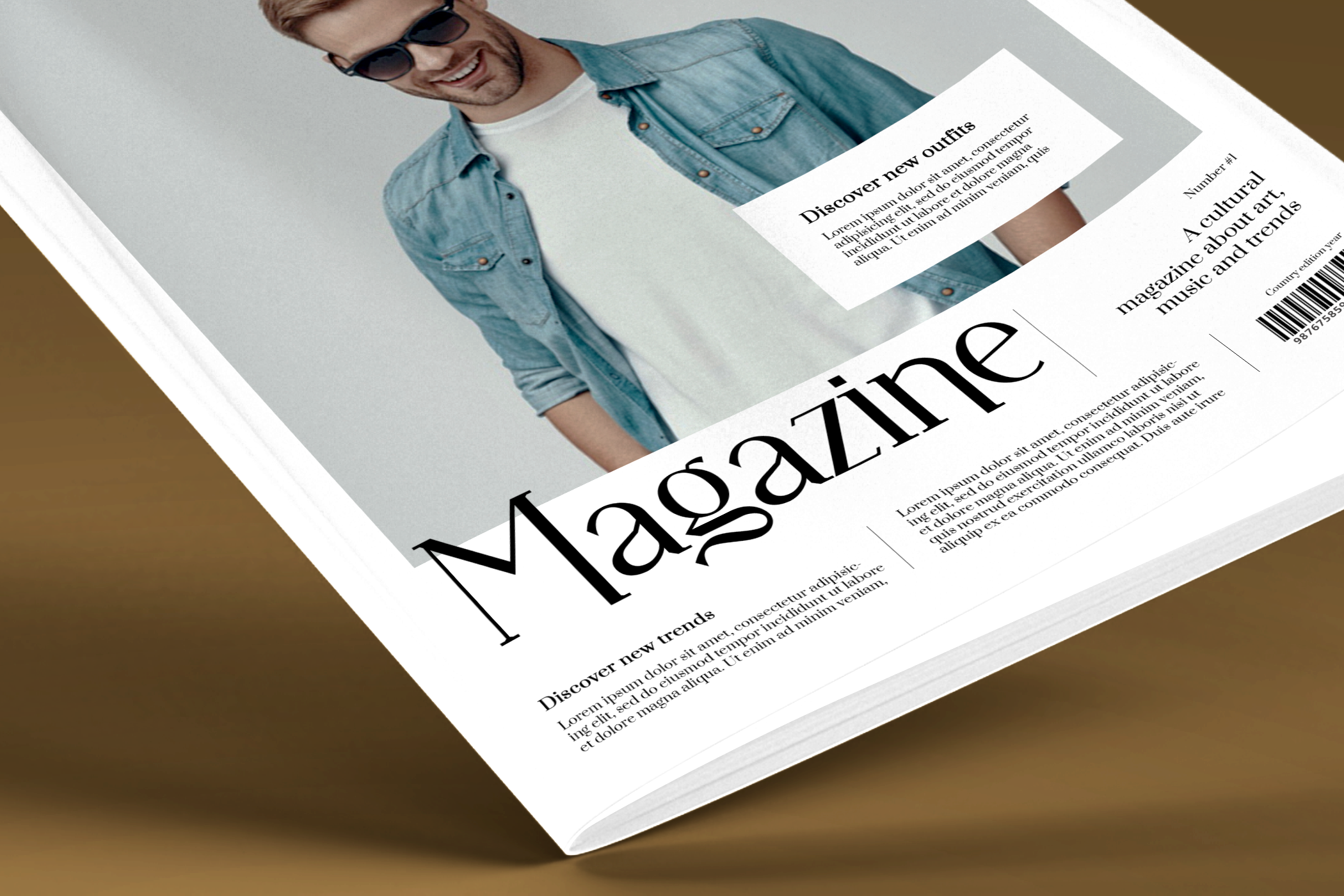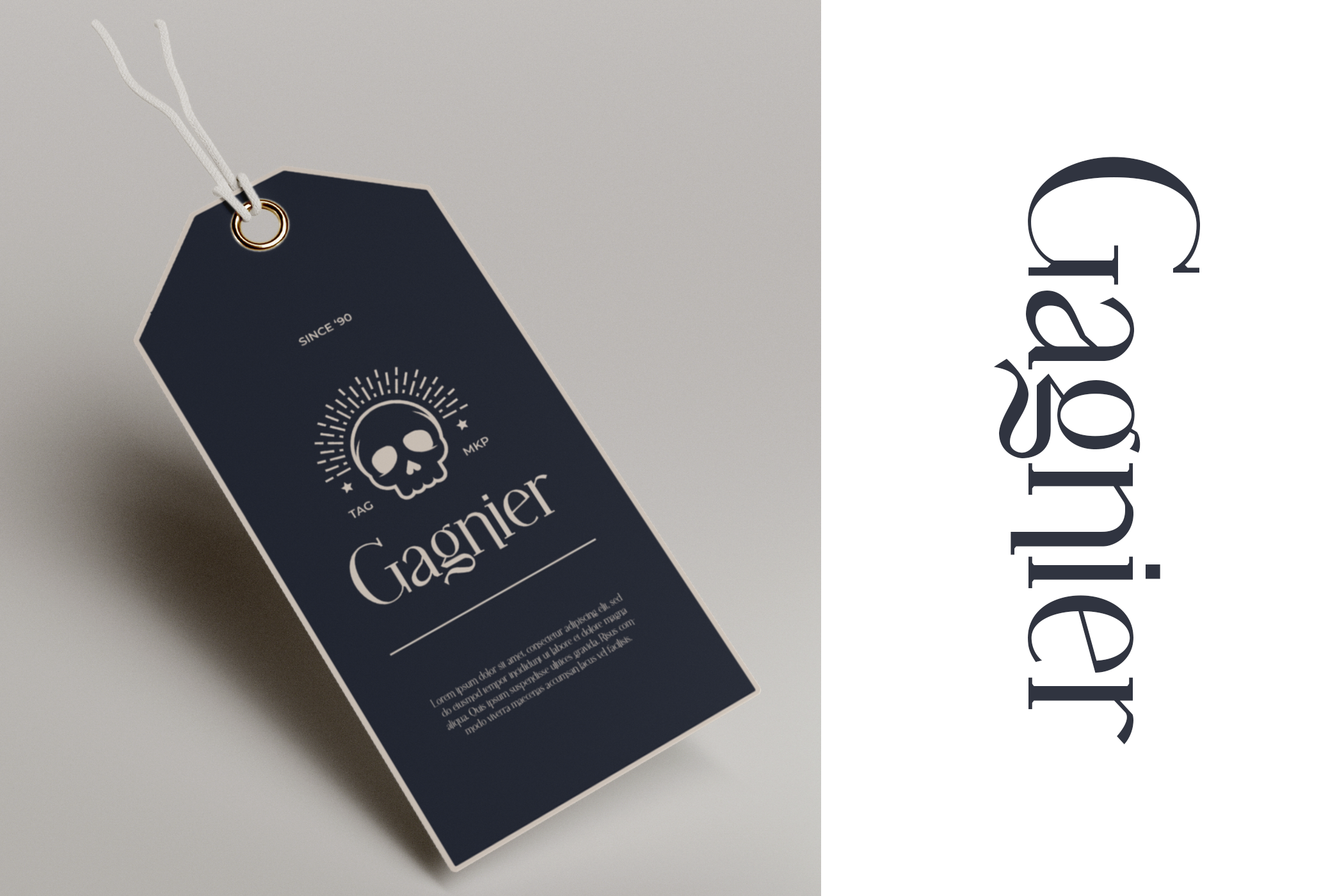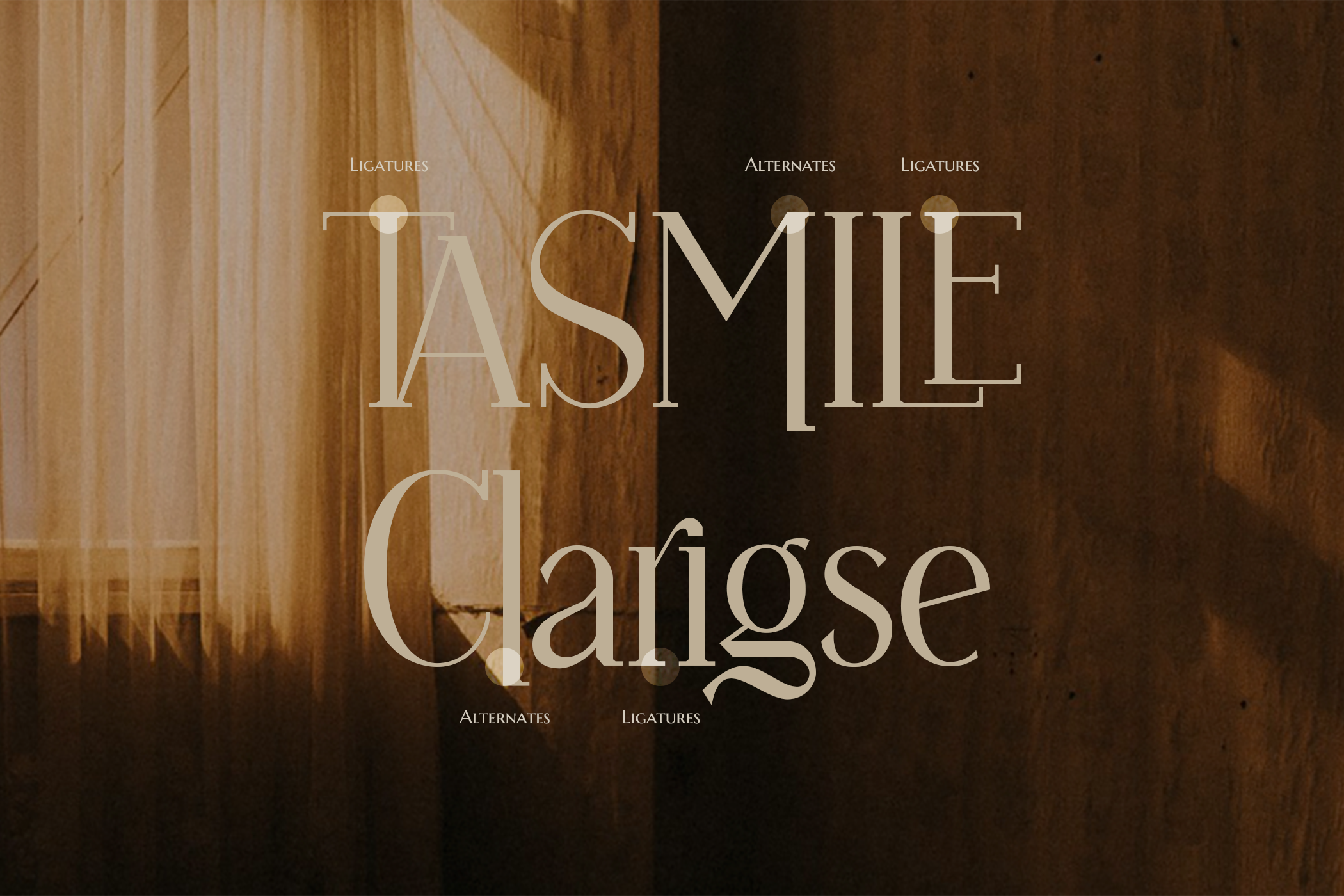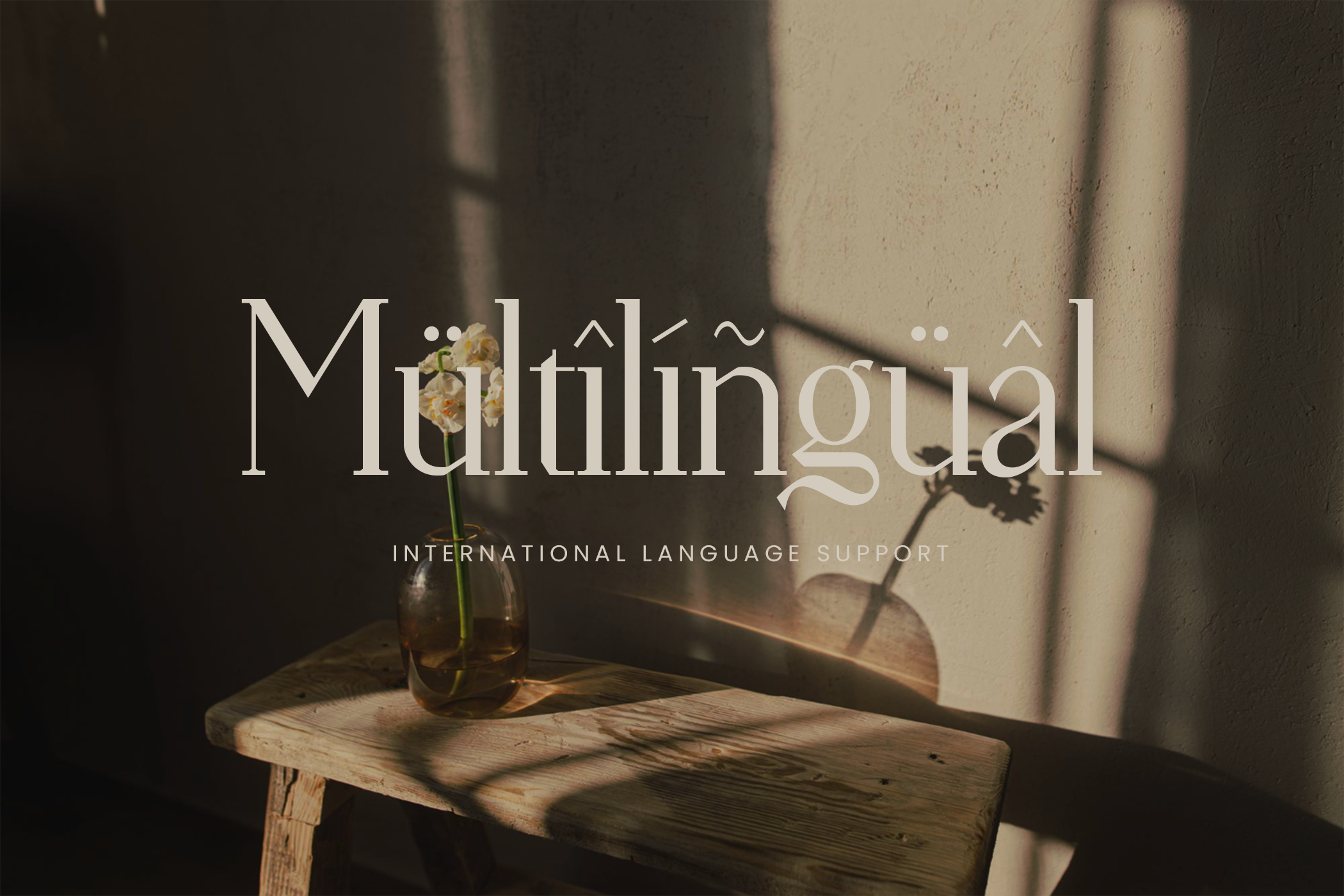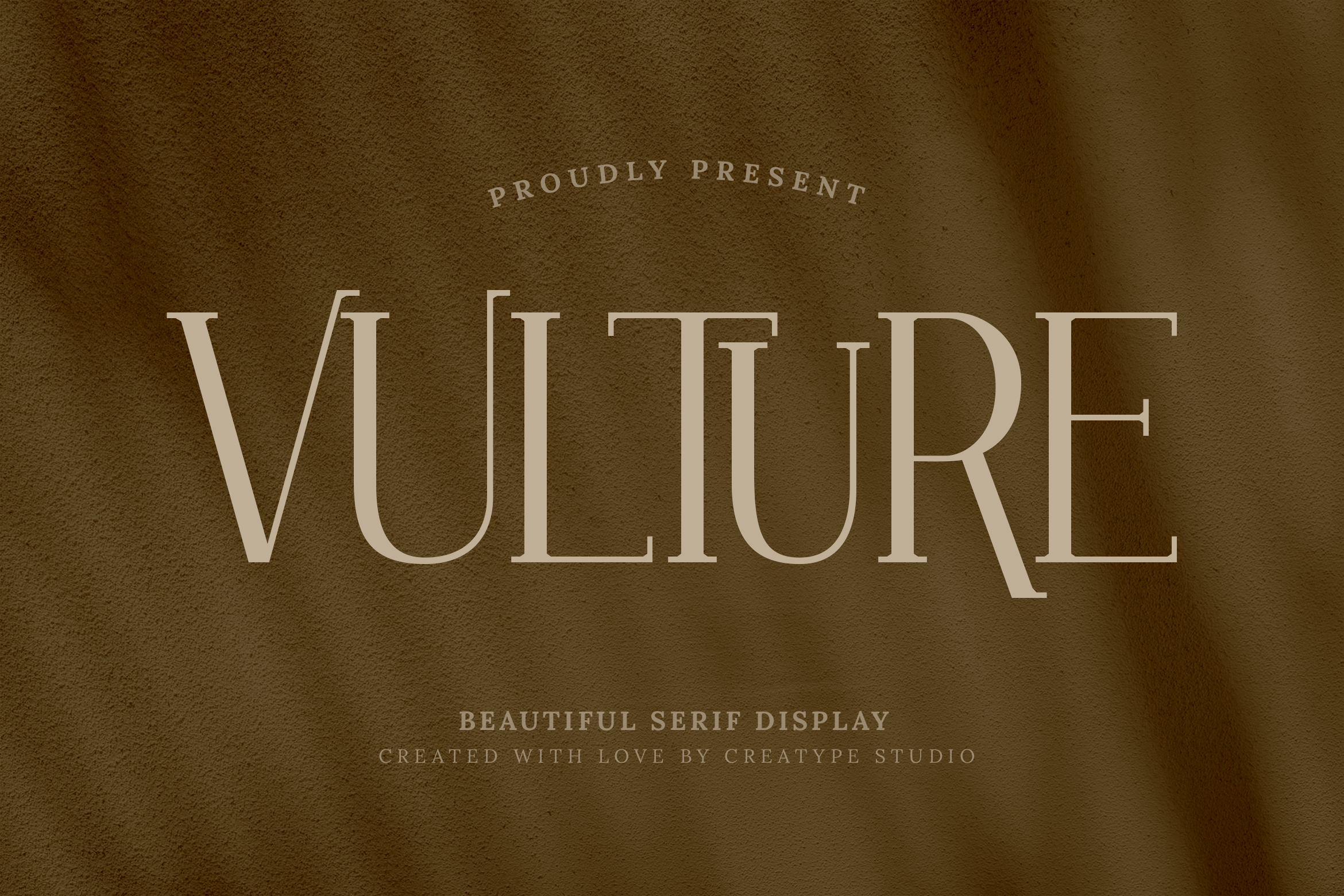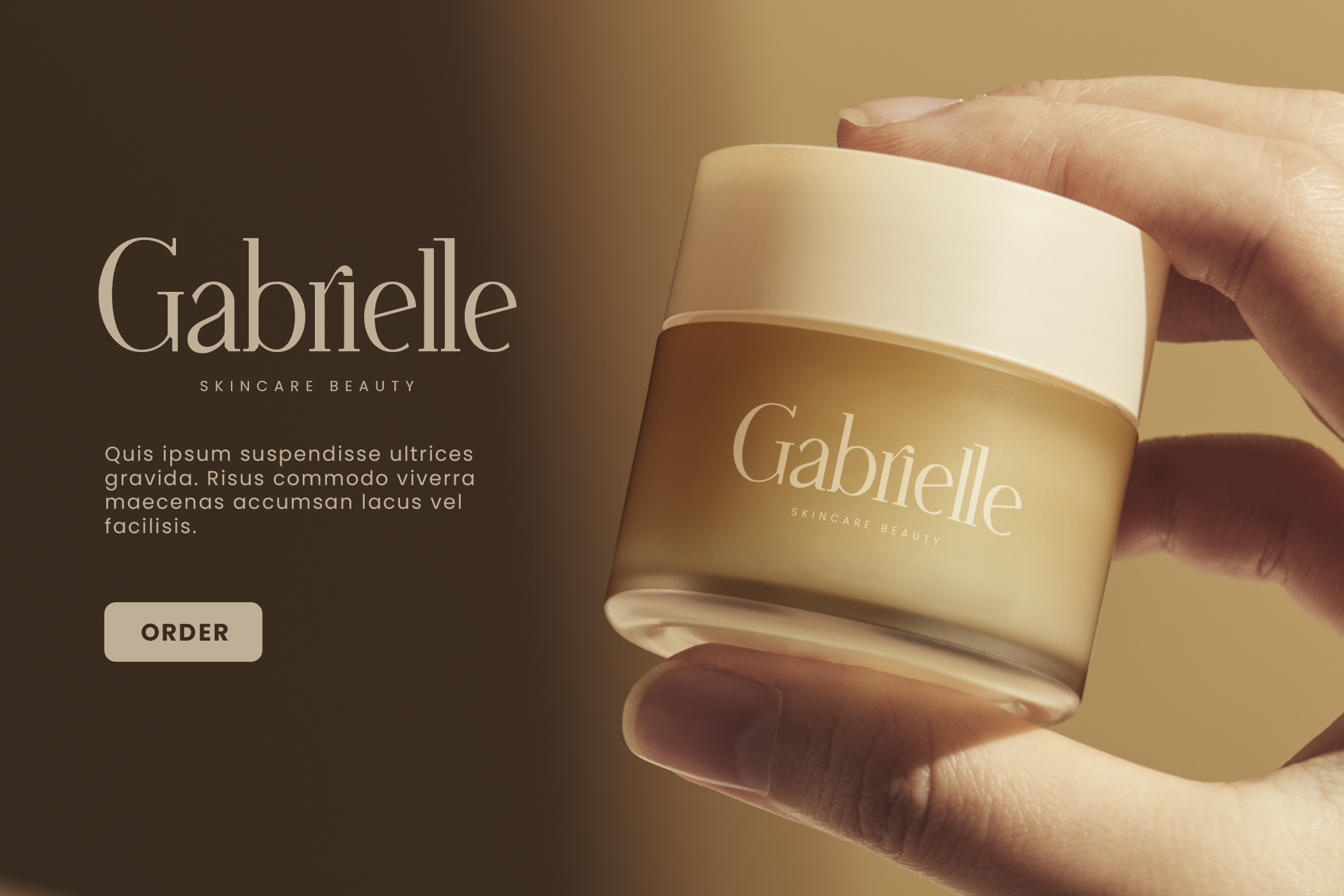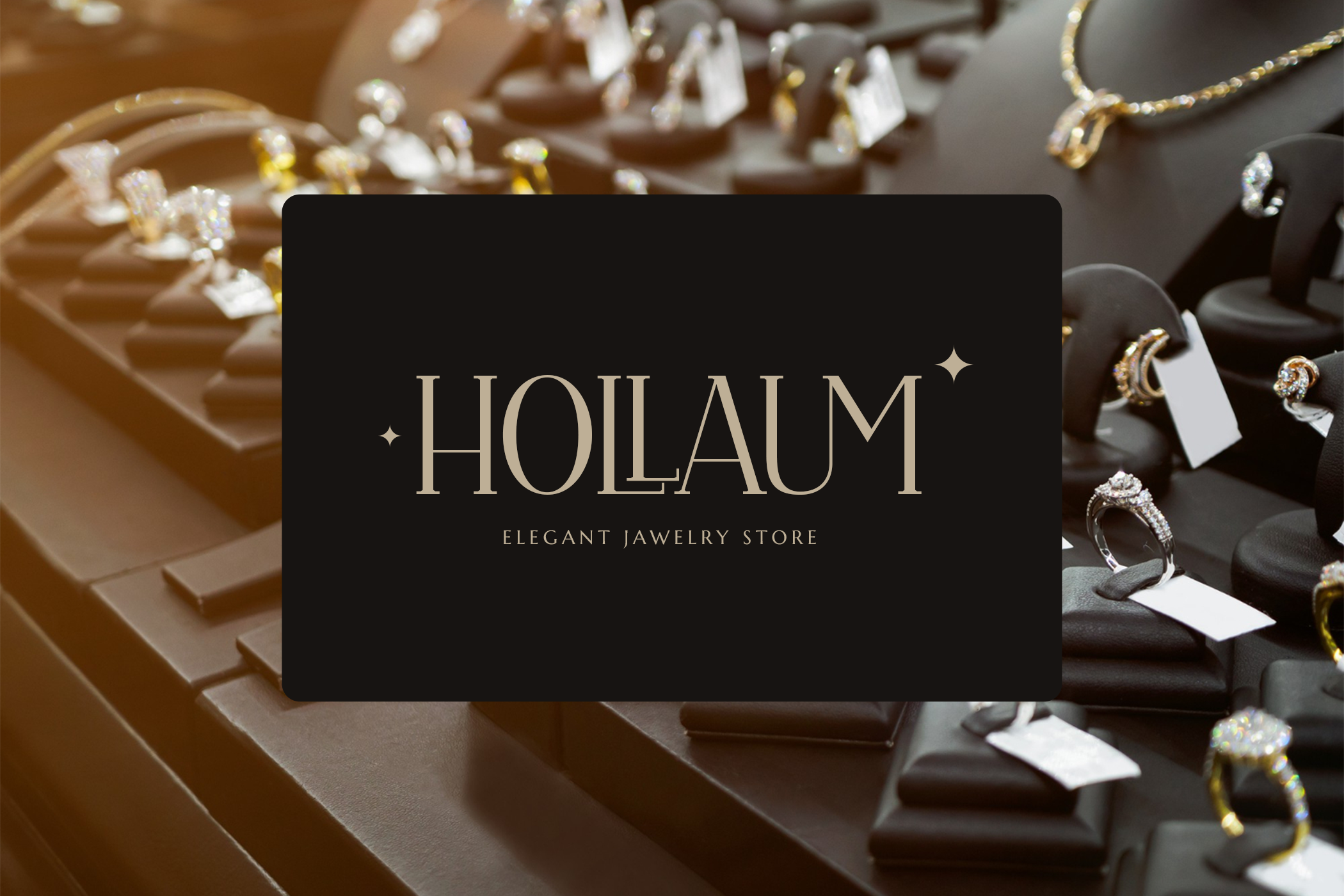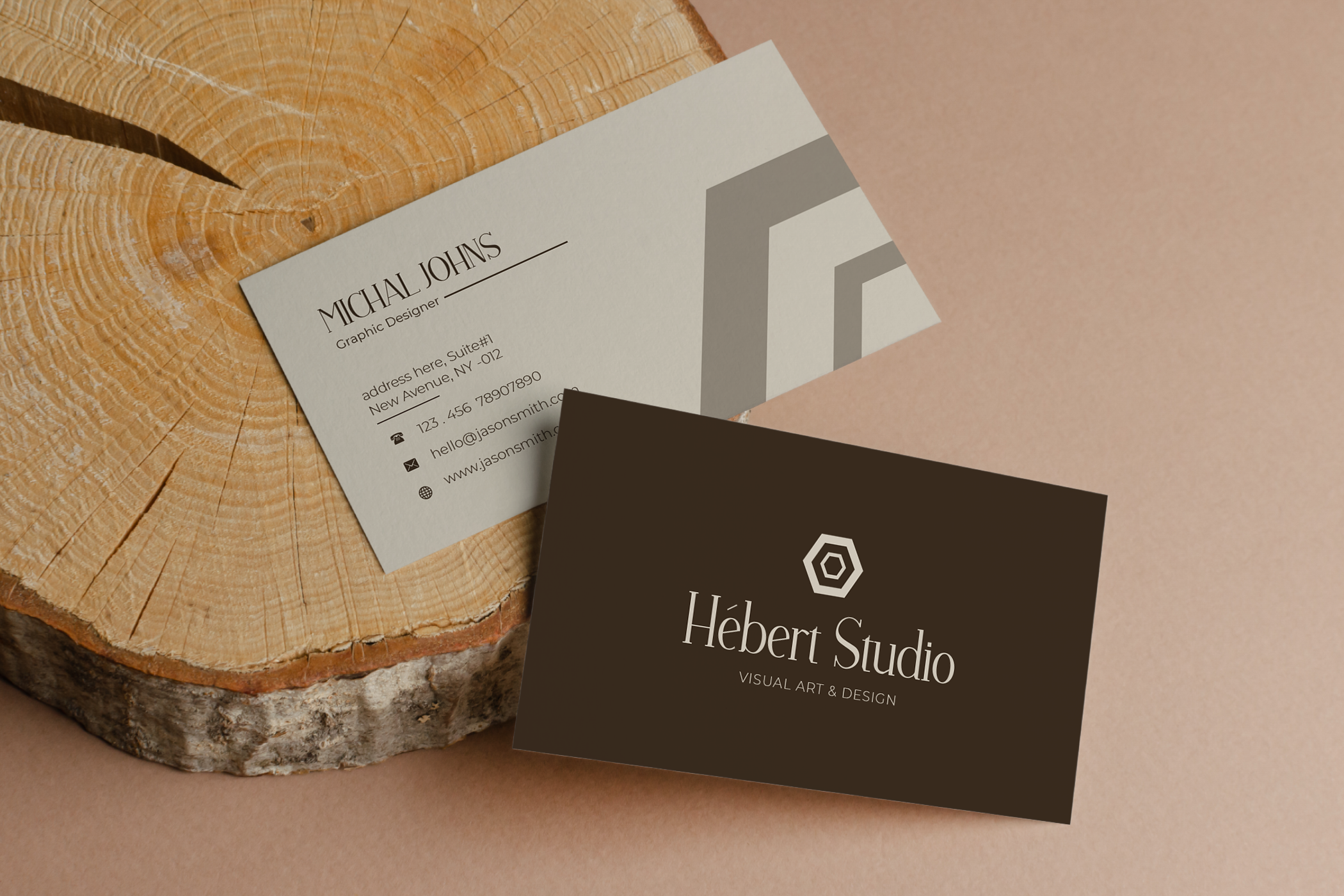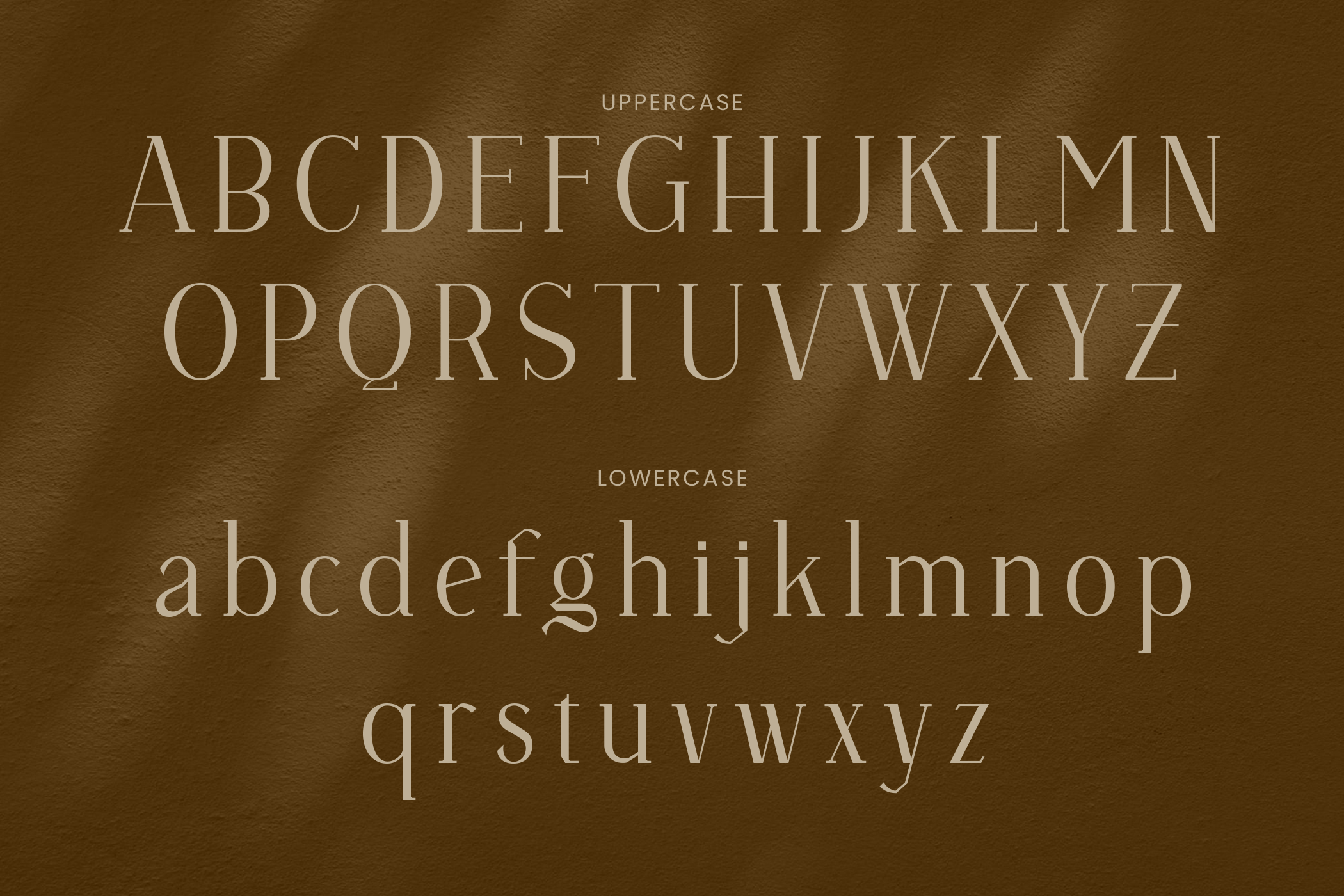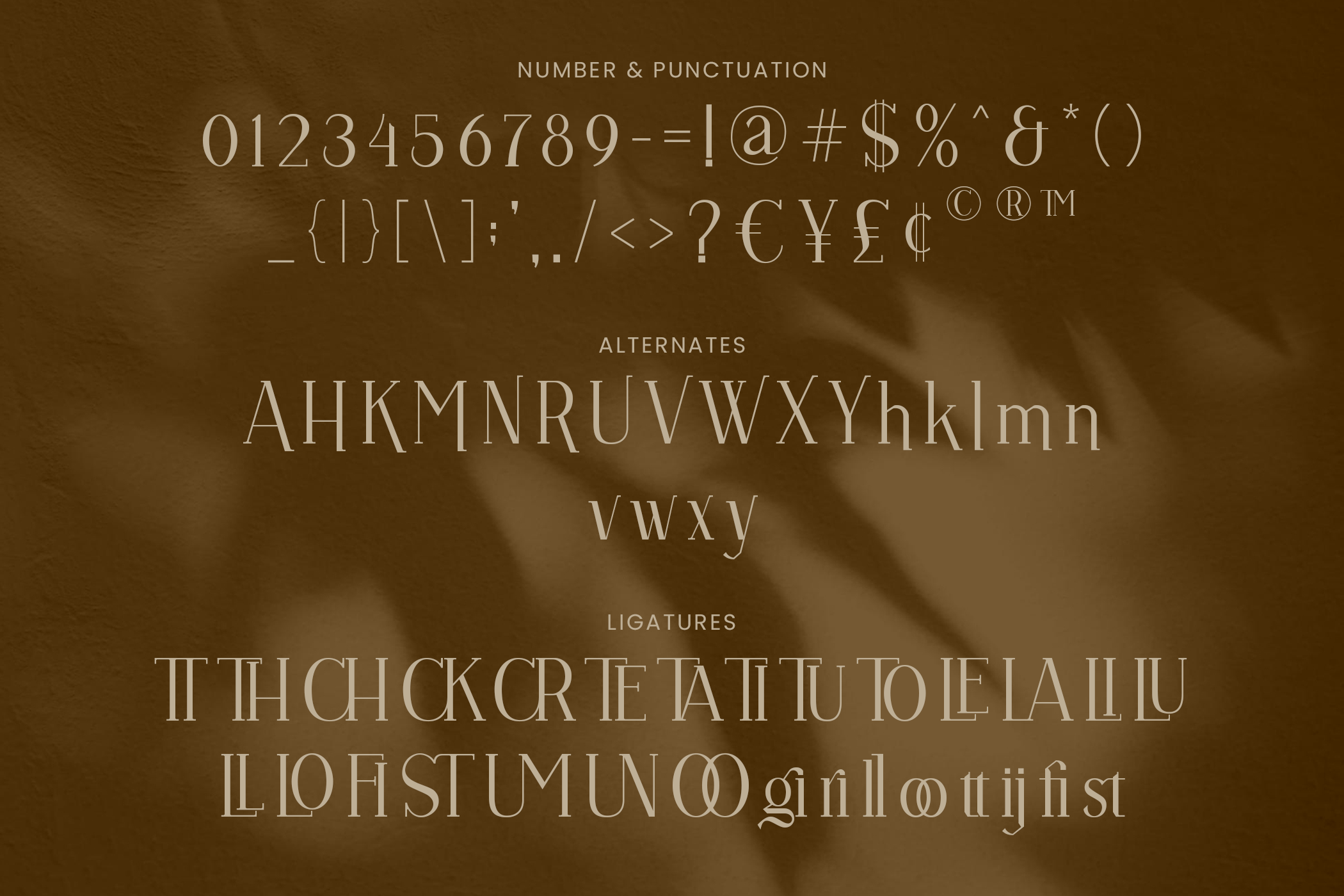
Vulture, the elegant beautiful serif display typeface, versatile in its simplicity and impactful in its modern aesthetic.
Vulture is perfect for branding projects, logos, wedding designs, social media posts, advertisements, product packaging, product designs, label, photography, watermark, invitation, stationery, and any projects that need handwriting taste.
Vulture Beautiful Serif